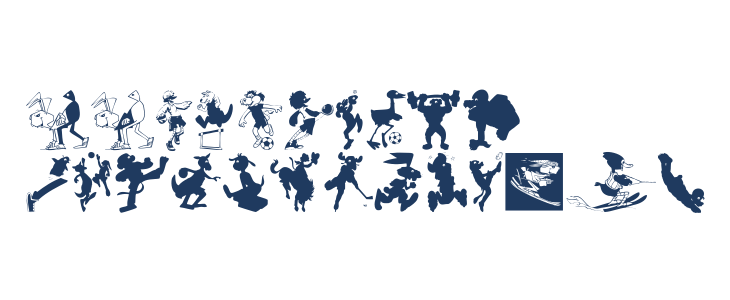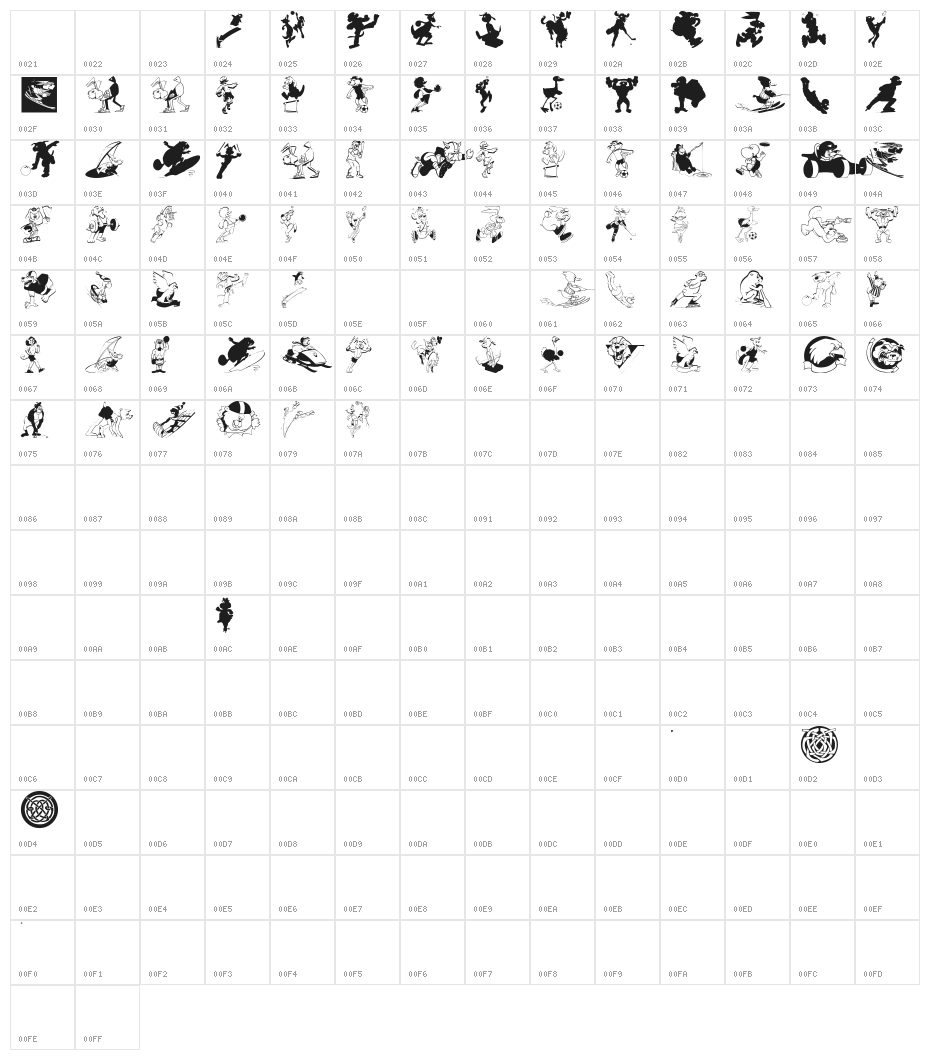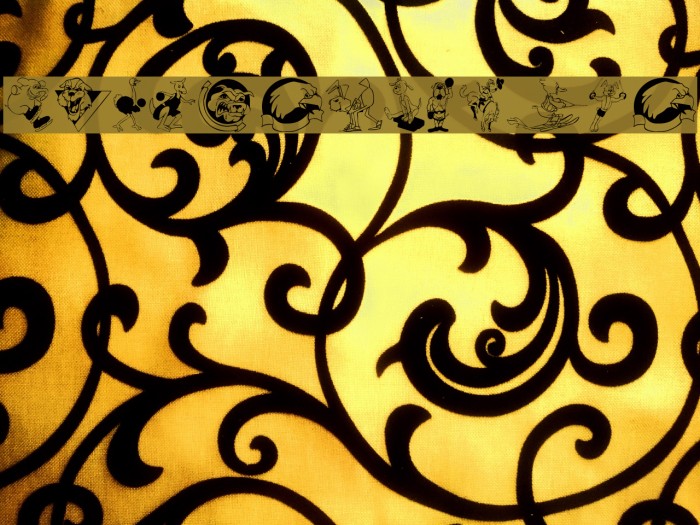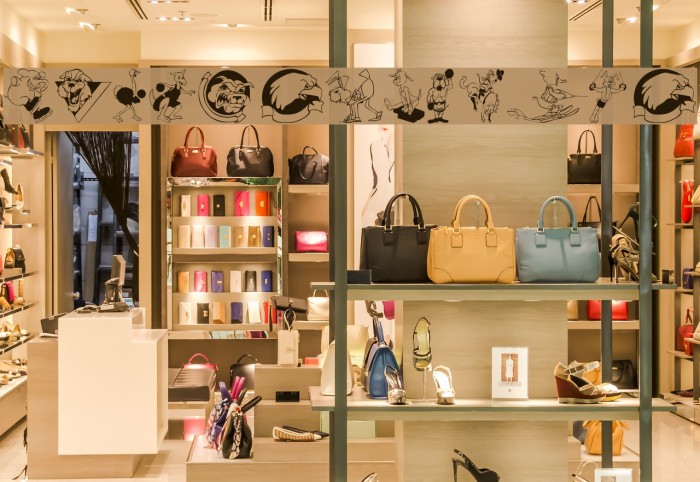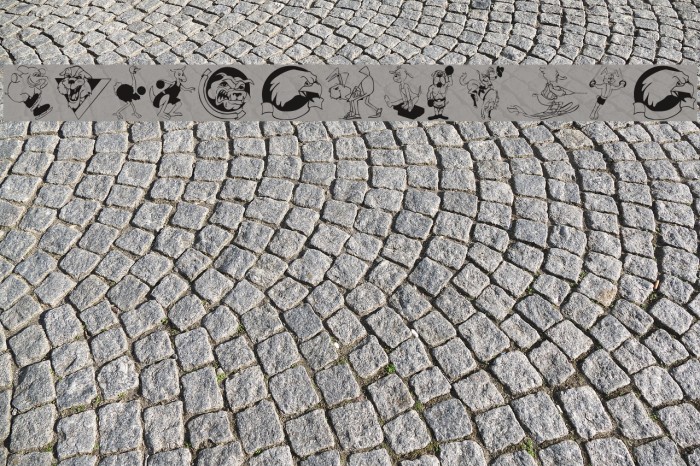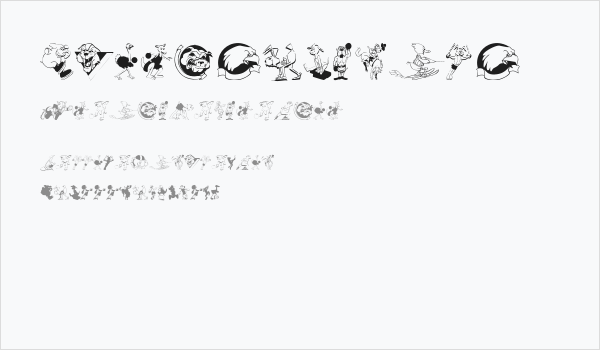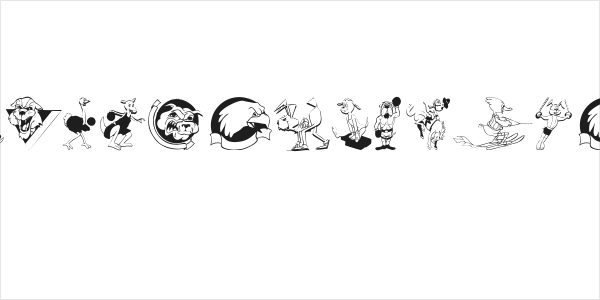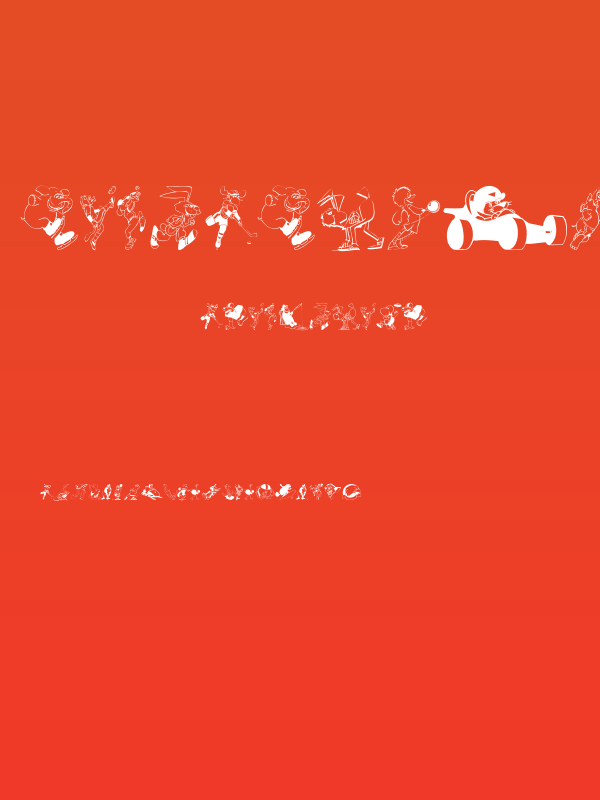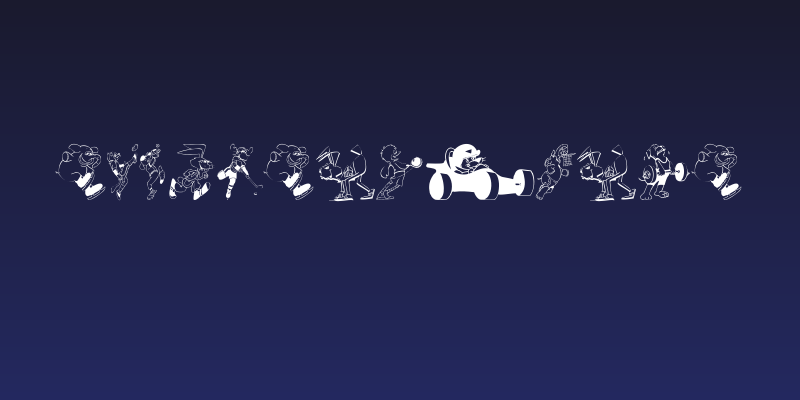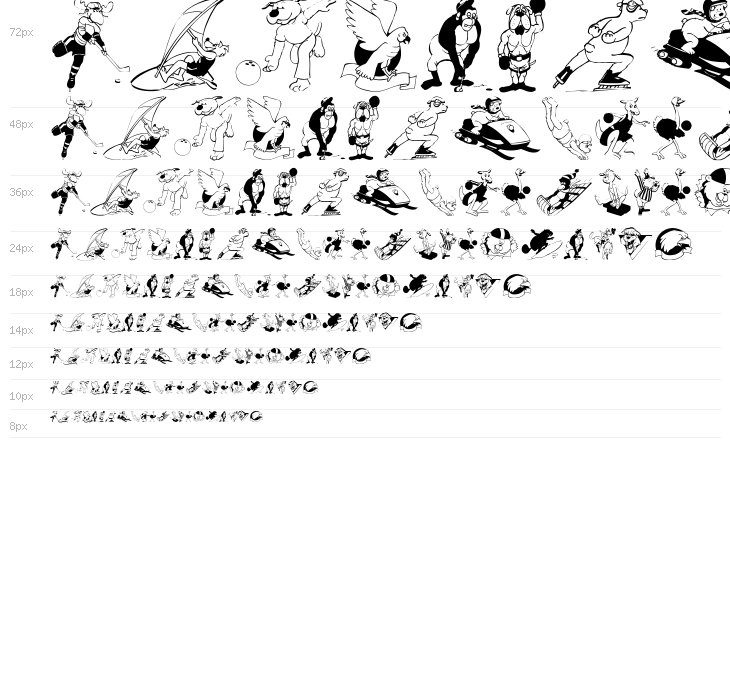
SportsAnimals Font
SportsAnimals Description
| Overall Style | Decorative, Playful, Cartoonish |
| Use Case | Logos, Posters, ChildrenΓ’β¬β’s materials, Mascots |
| Proposed Projects | ChildrenΓ’β¬β’s books, sports event posters, mascot design, educational materials, playful branding. |